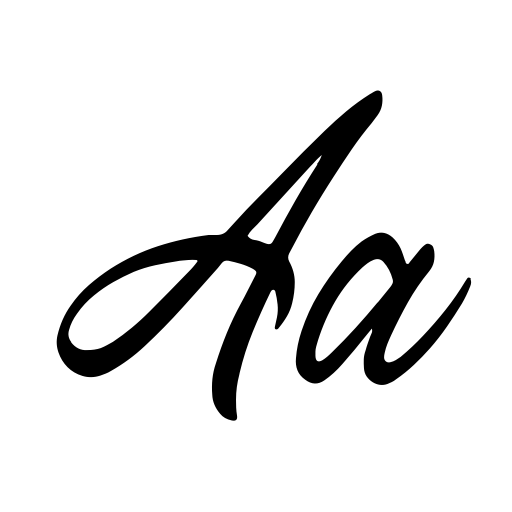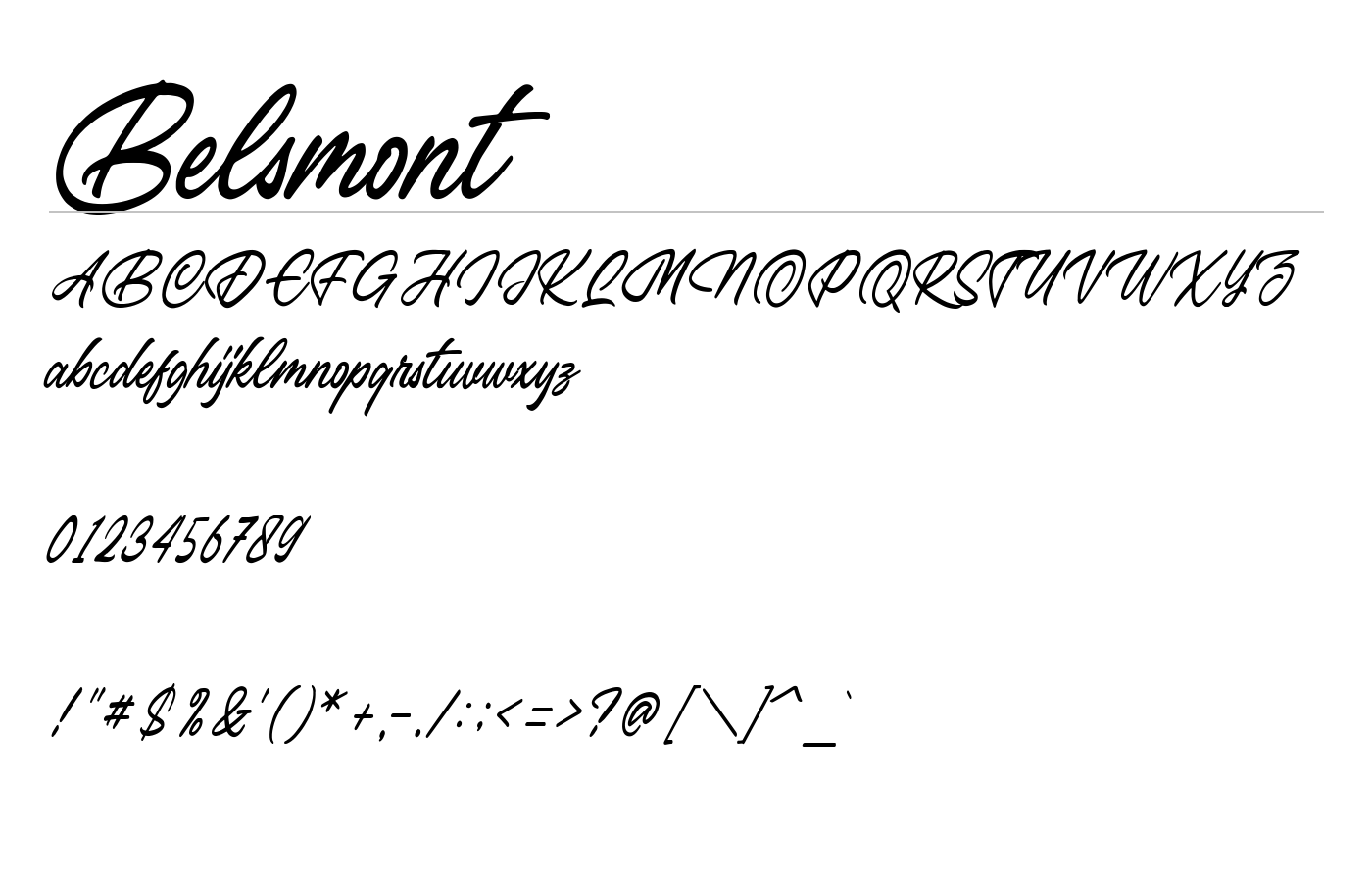
Belsmont is a stylish script font with a smooth, elegant flow and moderate contrast in stroke weight. Its cursive letters and slightly condensed form give it a refined, sophisticated feel, making it perfect for luxury branding, invitations, and logos that seek a graceful and personalized touch. This font works well in settings where a classic yet modern handwritten look is desired.